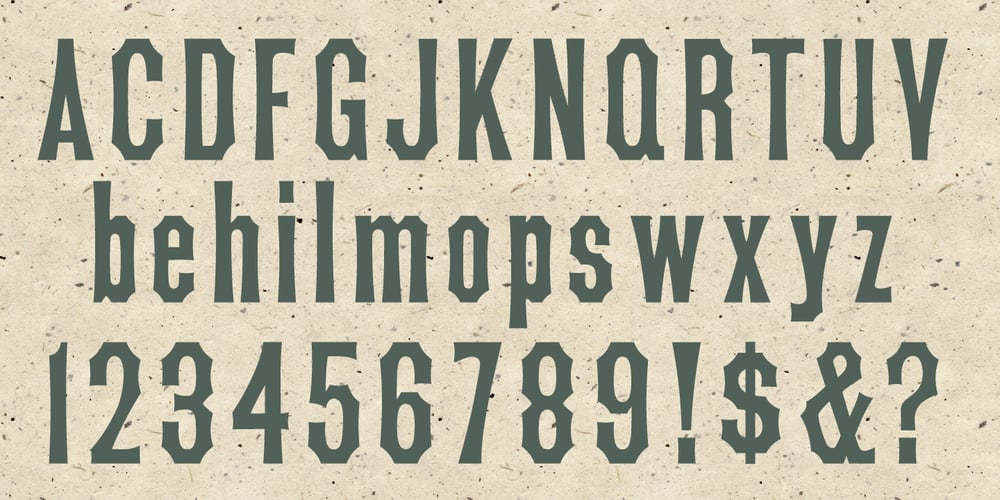
MPI Tuscan Extra Condensed
MPI Tuscan Extra Condensed font
MPI Tuscan Extra Condensed Font Family was designed by William Hamilton Page and published by mpressInteractive. MPI Tuscan Extra Condensed contains 1 styles and family package options. Tuscan X Condensed (whose actual name is Gothic Concave Tuscan Extra Condensed) was first produced in wood type by William H. Page & Company around 1872. The design is derived from a Gothic Condensed typeface, but with vertical stokes bowing inwards at the center. We modified the weight of the uppercase characters (since the original wood type has a lowercase much thinner than the caps) to harmonize with the lowercase when used digitally.